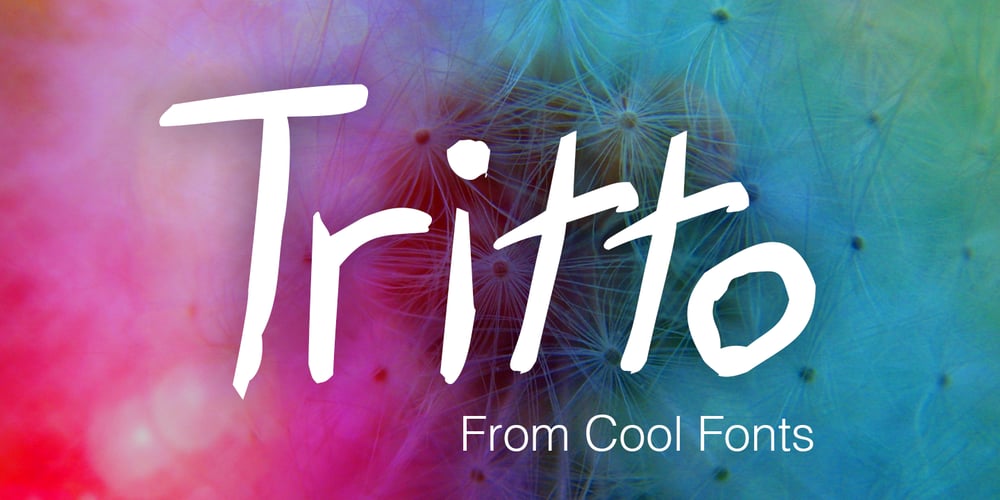
Tritto
Tritto font
Tritto Font Family was designed by Todd Dever and published by Cool Fonts. Tritto contains 1 styles and family package options. Tritto is what happens after you give up a pencil and start using a mouse. It’s some wild handwriting that you definitely didn’t learn in school. Fun with attitude, great for all sorts of things.